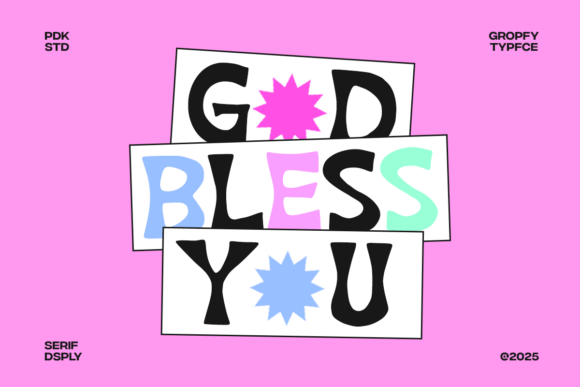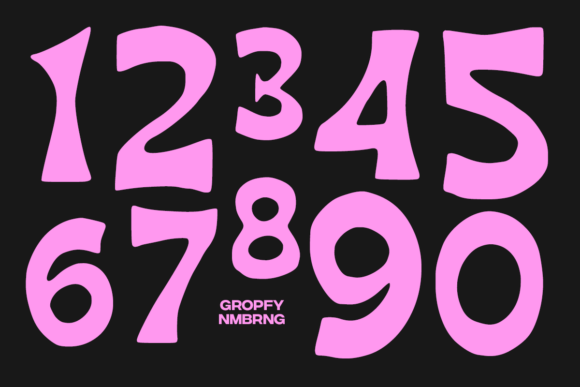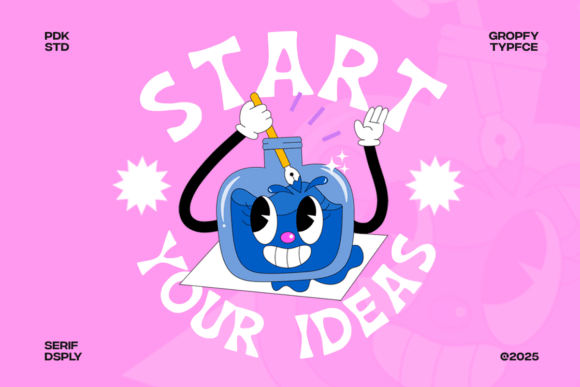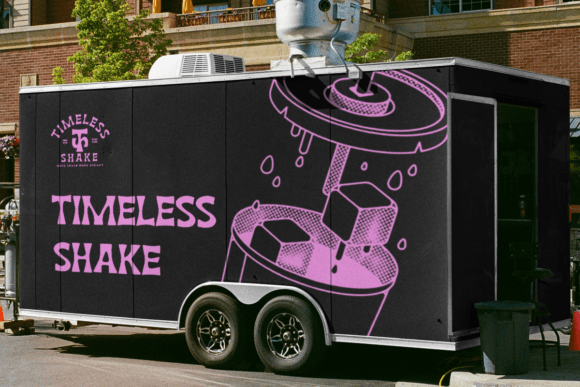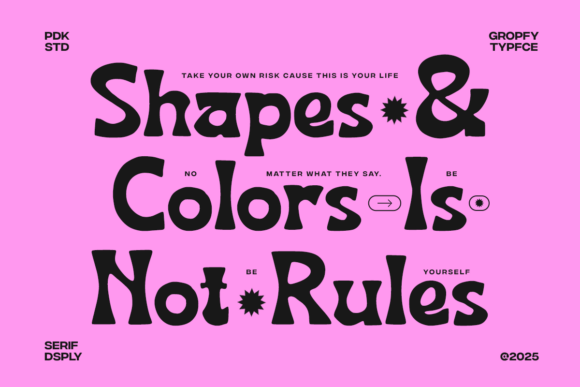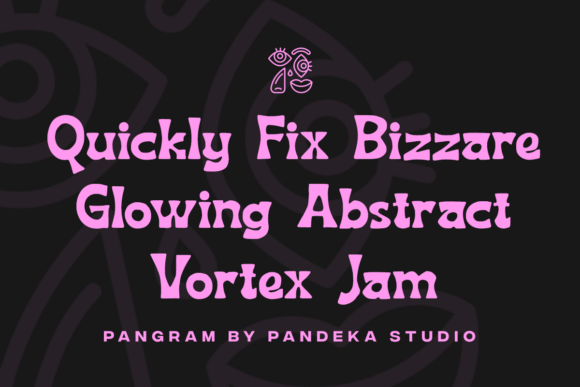
Introducing Gropfy Font: Unleash Your Creativity with this Quirky Serif Display Font
Are you tired of using the same old fonts for your designs? Look no further! Gropfy Font is here to shake things up with its unique blend of quirky and playful serif display font, packed with personality. This hand-drawn font is designed to stand out from the crowd, making it perfect for branding, posters, packaging, and creative editorial layouts.
The Unique Characteristics of Gropfy Font
Gropfy Font combines expressive curves with a hand-drawn vibe, giving it a distinct and eye-catching look. The font features uppercase, lowercase, numbers, symbols, and over 50 stylistic glyphs, making it incredibly versatile and perfect for supercharging any bold design concept. Whether you’re a designer, craftsperson, or DIY enthusiast, Gropfy Font is sure to inspire your creativity and take your designs to the next level.
What Makes Gropfy Font So Special?
- Quirky and Playful: Gropfy Font has a unique personality that sets it apart from other fonts. Its quirky and playful nature makes it perfect for designs that require a bit of whimsy and fun.
- Hand-Drawn Vibe: The font’s hand-drawn vibe gives it a human touch, making it perfect for designs that require a personal and creative feel.
- Expressive Curves: Gropfy Font features expressive curves that add to its unique charm. The curves make the font highly legible and visually appealing.
- Versatile: With uppercase, lowercase, numbers, symbols, and over 50 stylistic glyphs, Gropfy Font is incredibly versatile and can be used for a wide range of design projects.
How to Use Gropfy Font in Your Designs
Gropfy Font is perfect for a variety of design projects, including:
- Branding: Use Gropfy Font to create unique and eye-catching logos, business cards, and letterheads that reflect your brand’s personality.
- Posters: Add a touch of whimsy and fun to your posters with Gropfy Font. It’s perfect for creating eye-catching headlines and titles.
- Packaging: Use Gropfy Font to create unique and eye-catching packaging designs that stand out on store shelves.
- Editorial Layouts: Add a touch of personality to your editorial layouts with Gropfy Font. It’s perfect for creating visually appealing headings and titles.
Tips and Tricks for Getting the Most Out of Gropfy Font
Here are a few tips and tricks for getting the most out of Gropfy Font:
- Experiment with Different Sizes: Gropfy Font looks great in a variety of sizes. Experiment with different sizes to find the one that works best for your design.
- Play with Color: Gropfy Font looks great in a variety of colors. Experiment with different colors to find the one that works best for your design.
- Mix and Match: Don’t be afraid to mix and match Gropfy Font with other fonts to create a unique and eye-catching design.
Gropfy Font is a quirky and playful serif display font that’s perfect for designers, craftspersons, and DIY enthusiasts who want to add a touch of personality to their designs. With its unique blend of expressive curves and hand-drawn vibe, Gropfy Font is sure to inspire your creativity and take your designs to the next level. So why wait? Download Gropfy Font today and start creating!